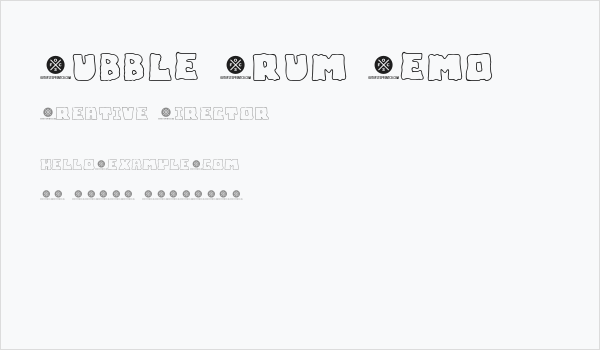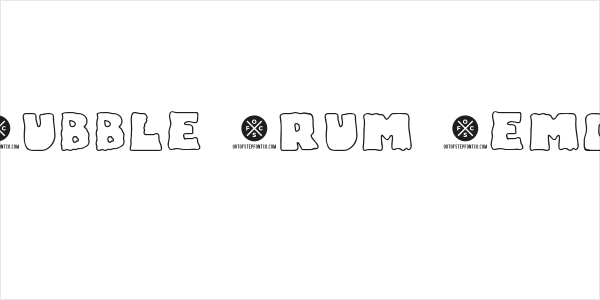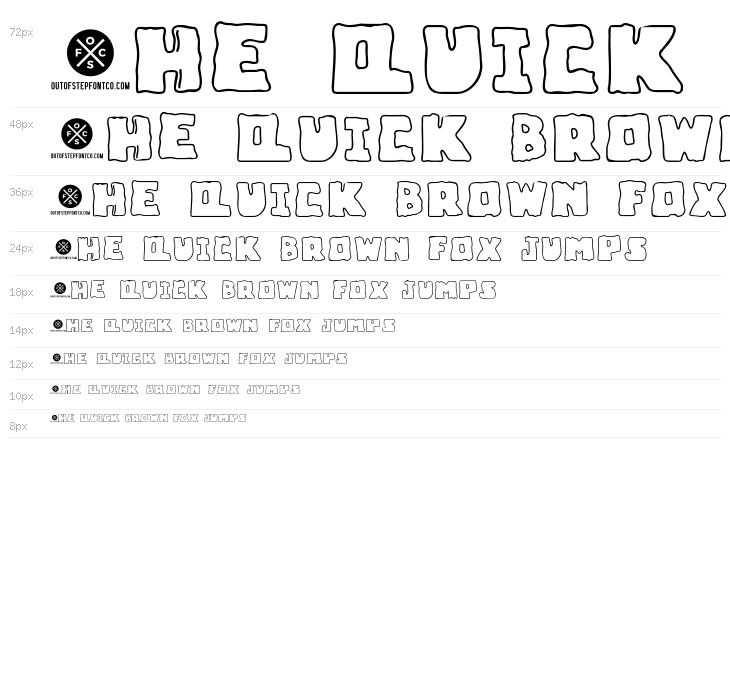
Bubble Frum Demo Font
Bubble Frum Demo Description
This playful and whimsical font features a bubbly, hand-drawn style with irregular outlines that give it a unique and informal appearance. Each character appears as if it is inflated, with a slightly uneven and organic shape that adds to its charm. The font is designed to capture attention with its bold and quirky aesthetic, making it ideal for projects that require a fun and lighthearted touch. The uppercase letters are particularly distinctive, with their exaggerated forms and playful curves.